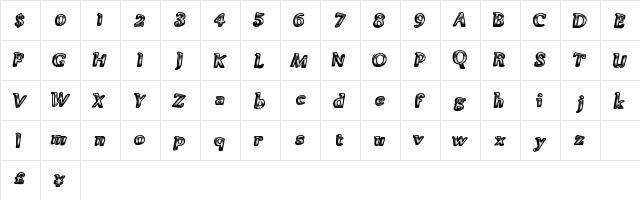
GreatPoints Regular
Design Context for GreatPoints Typeface
GreatPoints is a composed and adaptable typeface that performs quietly and consistently across a wide range of design contexts.
Pro Tip: Use GreatPoints in both headline and body roles to test its range before committing to a single application.